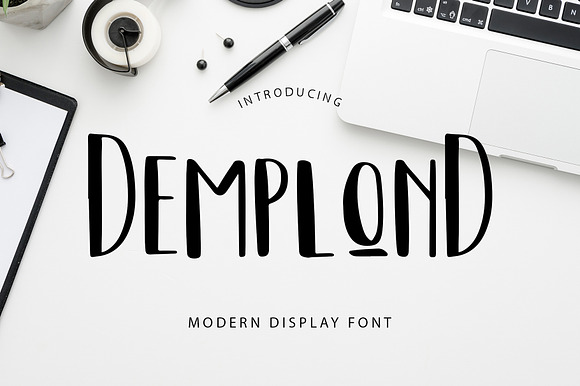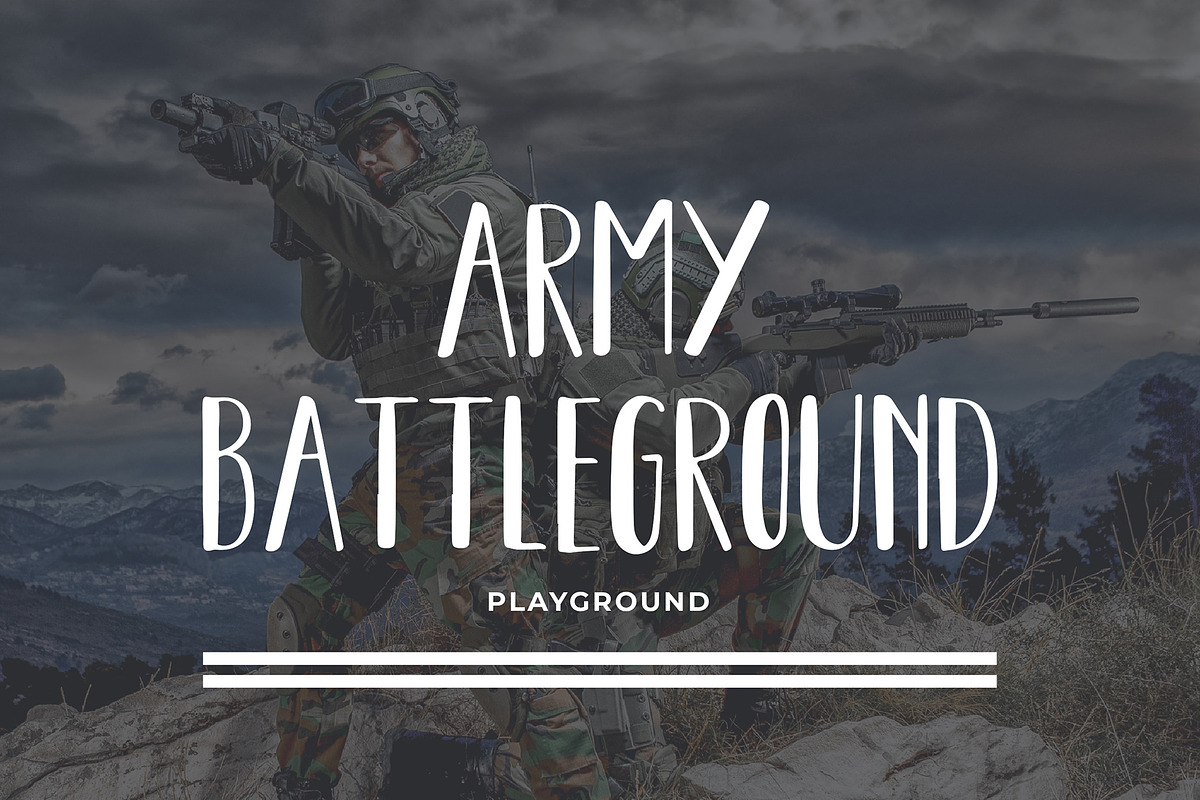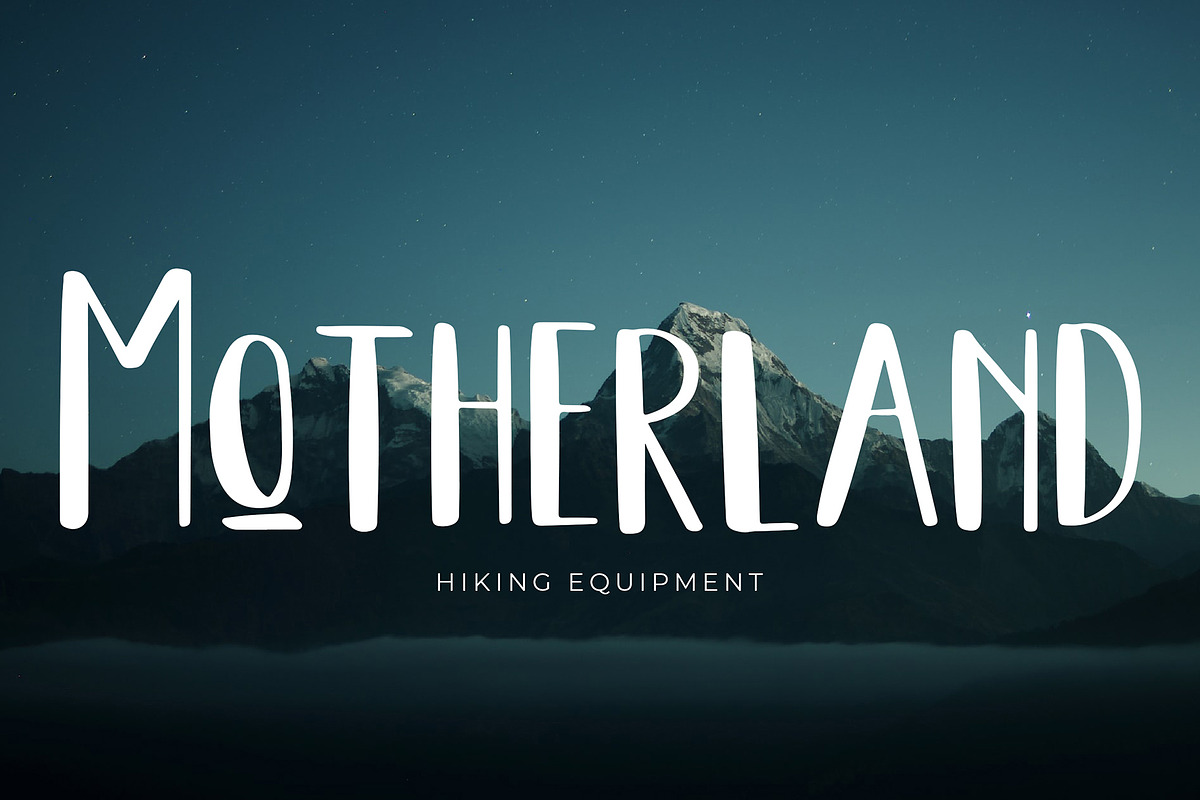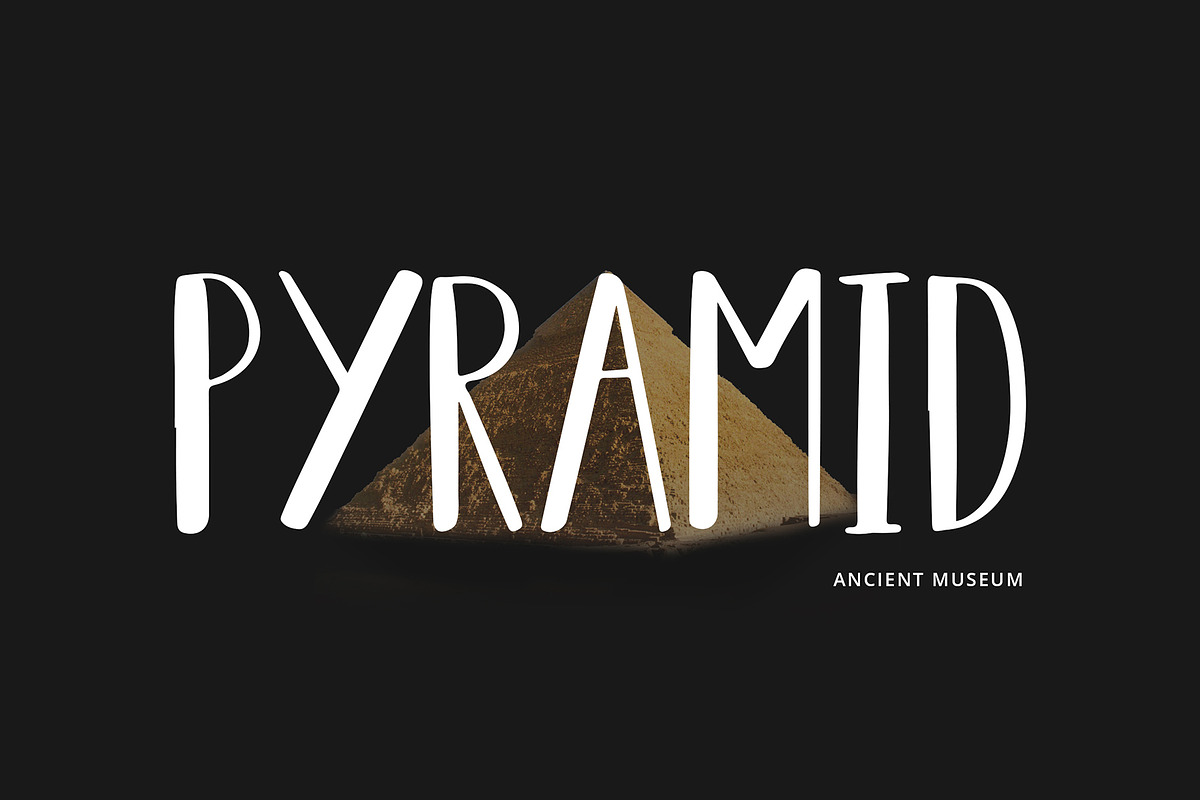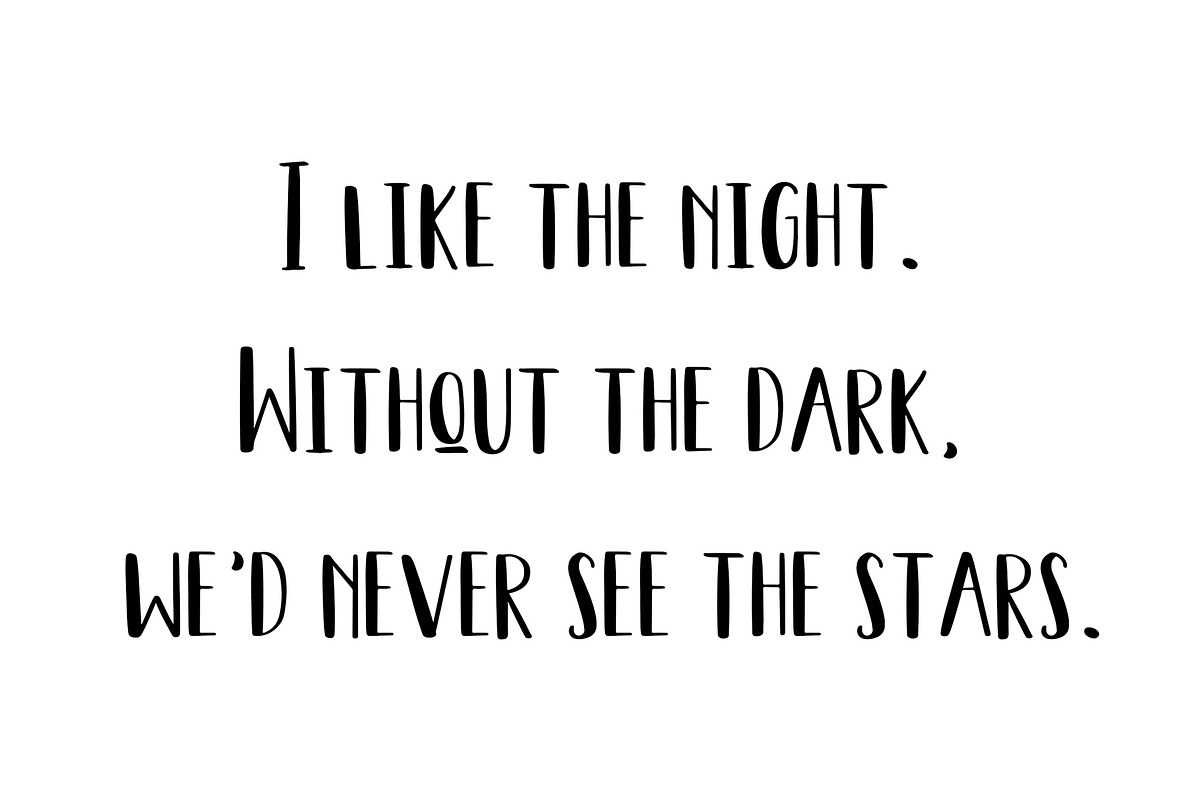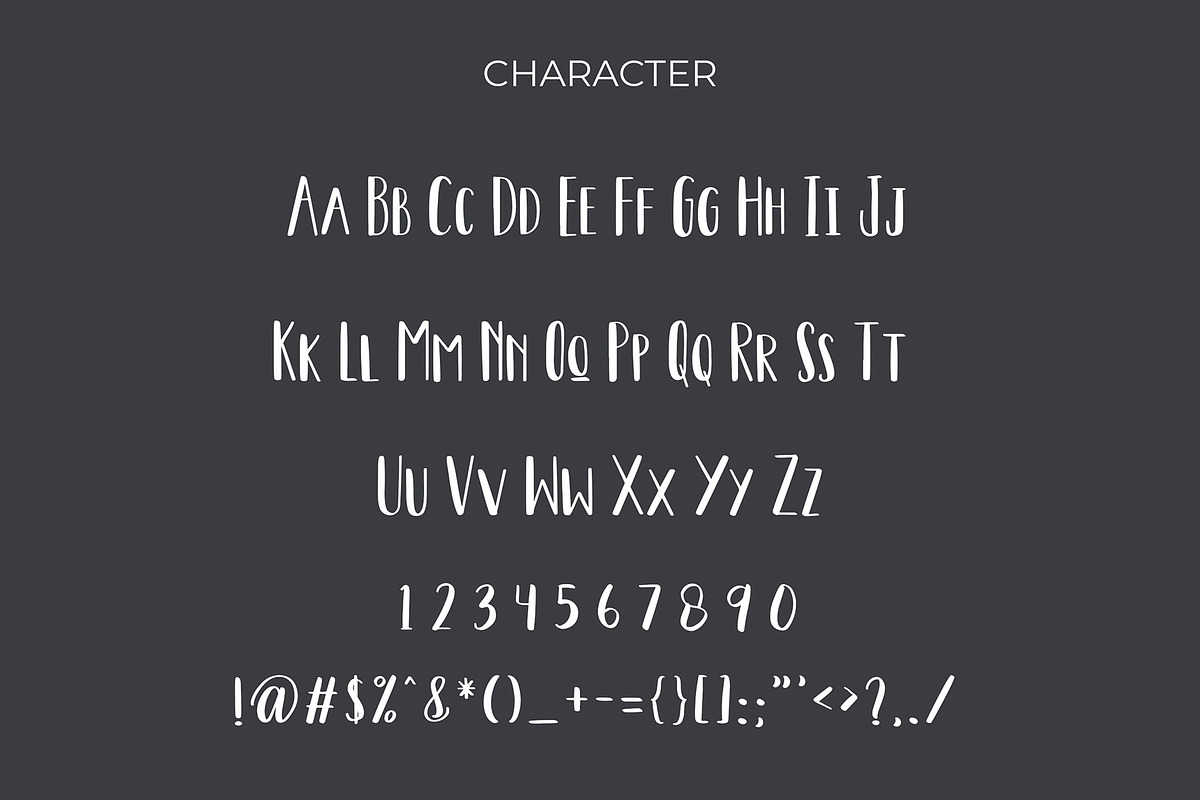
DemplonD Display Font
Demplond is Display font that perfect for branding projects, logo, tshirt designs, social media posts, advertisements, product packaging, product designs, label, watermark, invitation, stationery and any projects
Why DemplonD Display Font is worth a look
DemplonD Display Font by Formatika Studio fits naturally into Branding, posters, packaging, typography.